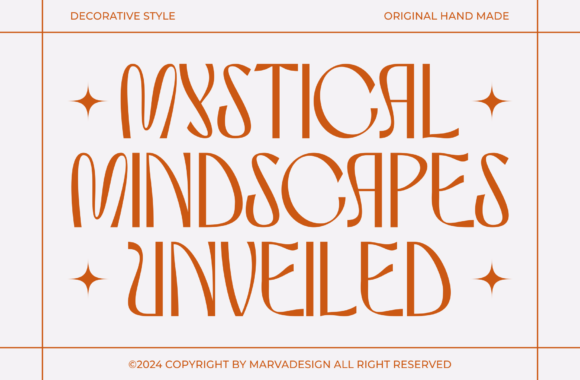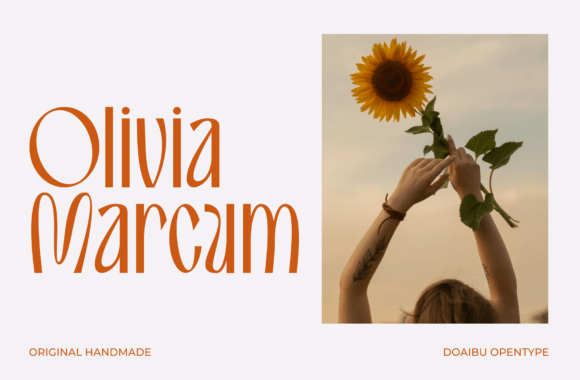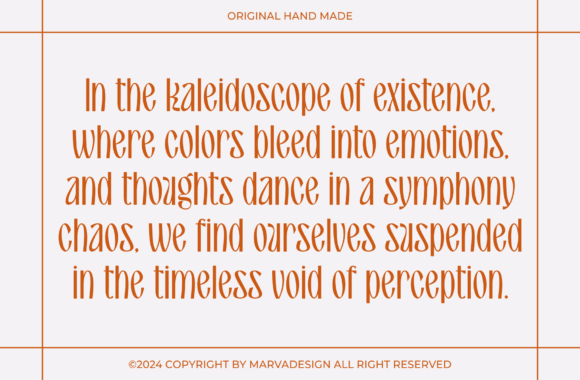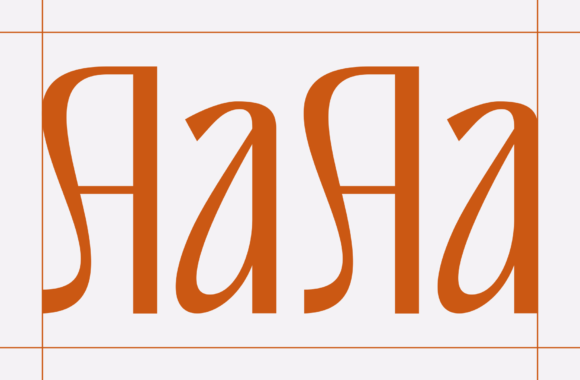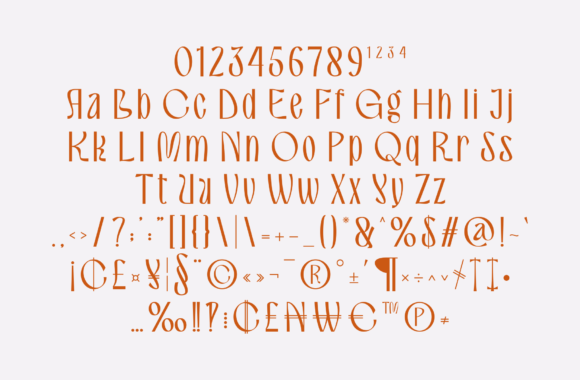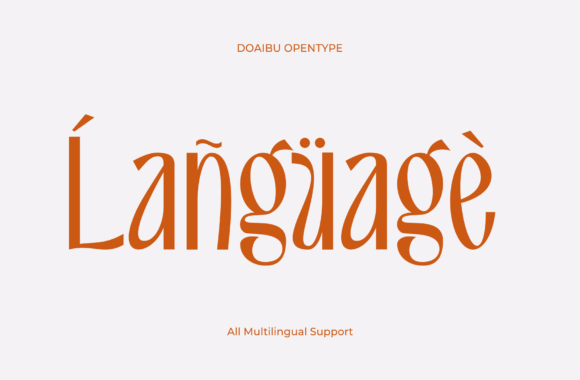
I still remember the frustration of working on a project, hours spent perfecting every detail, only to be held back by one thing: the font. It was a client request for a luxury brand, and I needed something that exuded elegance and sophistication. After scouring the internet, I stumbled upon Doaibu Font, and it was love at first sight! ✨ In this article, I’ll share my experience with this stunning decorative sans serif font and provide a comprehensive guide on how to make the most of its features.
An Honest Review of Doaibu Font
- ✨ Highly styled and elegant design that adds a touch of luxury to any project
- ✅ Each character looks like a hand-carved masterpiece, with fine, well-proportioned details
- ✅ Straight and firm lines create an impression of perfection and sophistication
- ✅ Perfect for branding, packaging, and advertising projects that require a high-end feel
While Doaibu Font is an exceptional font, there are a few things to keep in mind: 🤔
- ⚠️ It may not be the best choice for body text or long-form content, as its decorative nature can be overwhelming
- ⚠️ Some characters may require manual kerning for optimal spacing
- Experiment with OpenType features, such as stylistic alternates, to add more flair to your text
The Backstory of Doaibu Font
While the origins of Doaibu Font are shrouded in mystery, it’s clear that the designer was inspired by the art of hand-carved typography. The font’s creator likely spent countless hours perfecting every detail, from the straight and firm lines to the fine, well-proportioned details. The result is a stunning work of typographic art that adds a touch of luxury to any project.
| What is Doaibu Font best used for? | Doaibu Font is perfect for branding, packaging, and advertising projects that require a high-end feel. |
| Can I use Doaibu Font for body text? | While possible, Doaibu Font may not be the best choice for body text or long-form content, as its decorative nature can be overwhelming. |
| Is Doaibu Font suitable for digital use? | Yes, Doaibu Font is suitable for digital use, including websites, social media, and email marketing campaigns. |